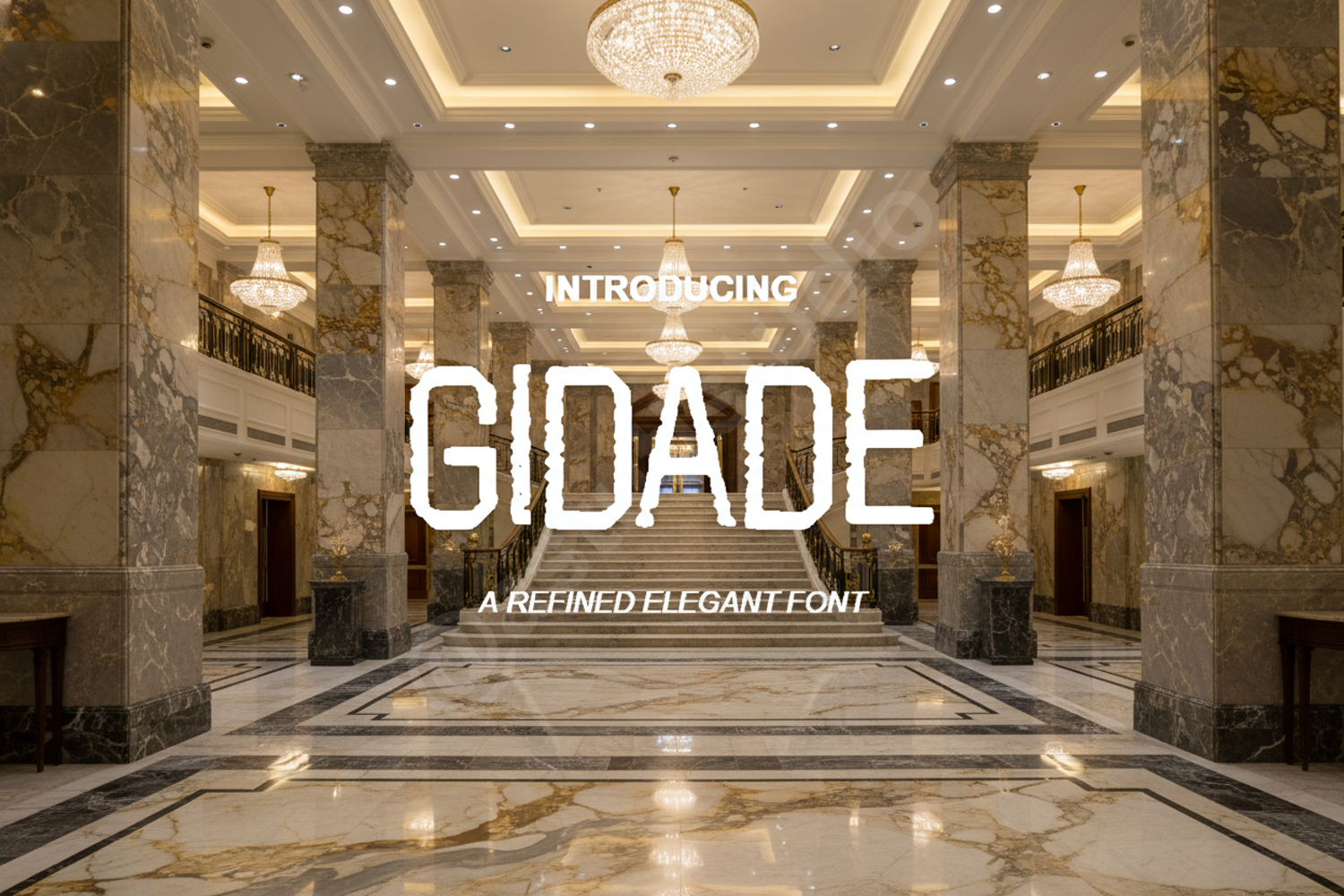
Gidade - Modern Geometric Sans Serif Font
Gidade
Elevate your creative projects with Gidade, a premium geometric sans serif font designed for modern impact. Crafted with precision and a focus on balanced proportions, Gidade offers a clean, sophisticated aesthetic that ensures your message stands out with clarity and style. Whether you are working on a minimalist brand identity or a bold editorial layout, this font provides the versatility needed for high-end design.
- Standard English Character Set
- Numerals and Punctuation
- Branding and Visual Identity: Create memorable logos and cohesive brand systems.
- Editorial Design: Perfect for headlines, subheadings, and body text in magazines or lookbooks.
- Digital Marketing: Enhance your social media graphics, advertisements, and website interfaces.
- Print Media: Ideal for business cards, posters, and professional stationery.
- Wedding and Event Stationery: Add a touch of contemporary elegance to invitations and signage.